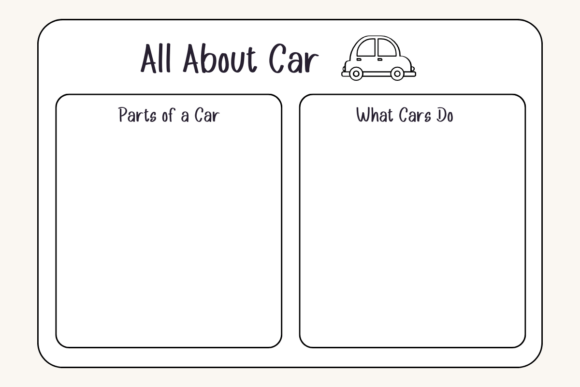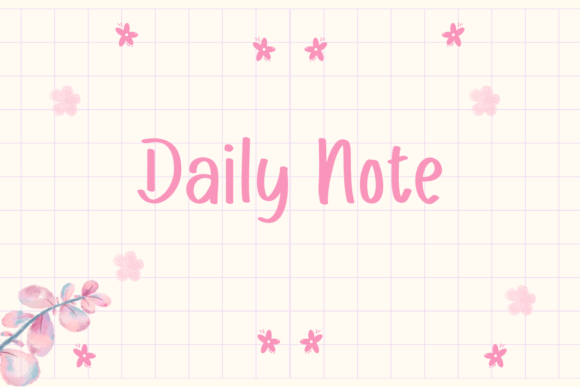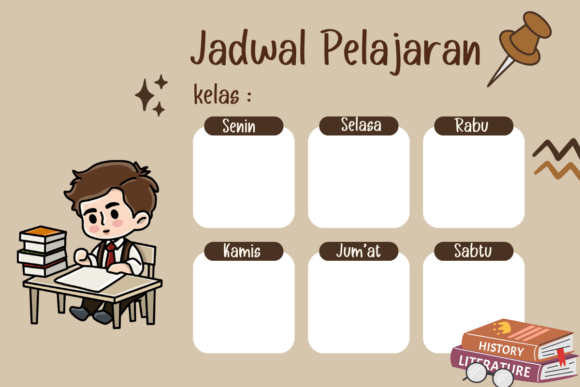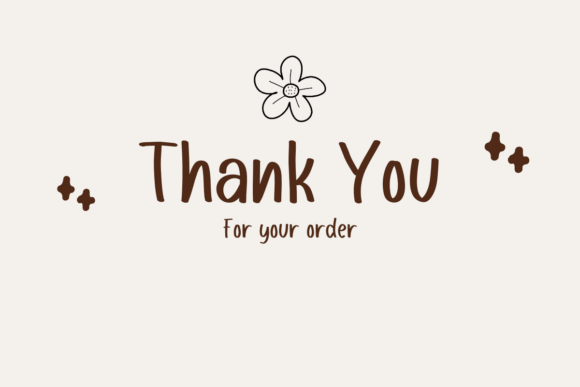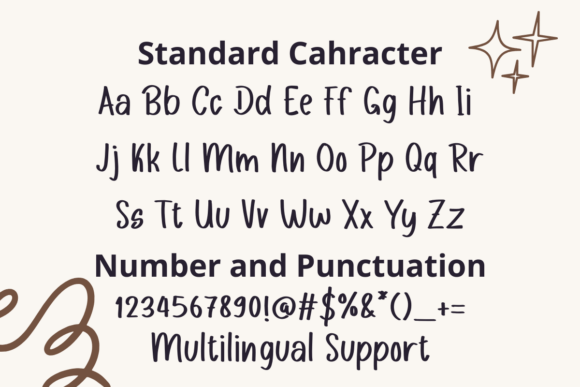
Introduction to Practice Hand Font
Have you ever found yourself lost in the process of brainstorming, mind mapping, or journaling, only to discover a spark of creativity that takes your project to the next level? For designers, writers, and creatives alike, those moments of clarity are invaluable. And, what if I told you that there’s a design resource that can help you unlock that clarity and focus? Enter the Practice Hand Font, a clean, instructional-style typeface that’s designed to evoke the serenity of mindful journaling.
With its balanced, vertical structure and simple strokes, the Practice Hand Font is the perfect choice for any high-quality creative project that values simplicity, mindfulness, and the beauty of a well-kept “practice”. Whether you’re working on a digital journal, educational “daily practice” log, or minimalist planning app, this font will provide a calm, orderly space for your thoughts to flourish.
Key Features of Practice Hand Font
- High-quality design for a creative project: The Practice Hand Font is designed to add a personal touch to your designs, making it an ideal choice for creative projects.
- Unique characteristics: The Practice Hand Font features a unique, handwritten style that is perfect for adding a personal touch to your designs.
Honest Review: Practice Hand Font
I recently came across the Practice Hand Font, and I must say it’s a high quality design resource that has the potential to elevate any creative project. As a designer, I appreciate the attention to detail and the care that went into creating this font.
What works well: ✨ The font is incredibly versatile and can be used for a wide range of applications, from signage to branding. The transparent background makes it easy to work with, and the free download option is a definite bonus.
However, there are a few limitations to consider: ⚠️ The font may not be suitable for large-scale commercial use due to licensing restrictions. Additionally, the font is quite decorative, so it may not be the best choice for projects that require a more straightforward, sans-serif font.
Overall, I’m impressed with the Practice Hand Font. It’s a great design resource that’s perfect for designers who want to add a touch of personality to their projects. With its high quality and versatility, it’s definitely worth checking out.
Introduction to Practice Hand Font
Practice Hand Font is a high-quality design resource ideal for creative projects requiring a unique, handwritten style. With a transparent background, this font is easily editable and customizable to suit your design needs.
Tips for Getting the Most Out of Practice Hand Font
- Combine Practice Hand Font with other design elements to create visually appealing compositions.
Common Use Cases for Practice Hand Font
- Creating custom invitations and greeting cards.
- Designing social media graphics and ads.
- Developing branding materials and logos.